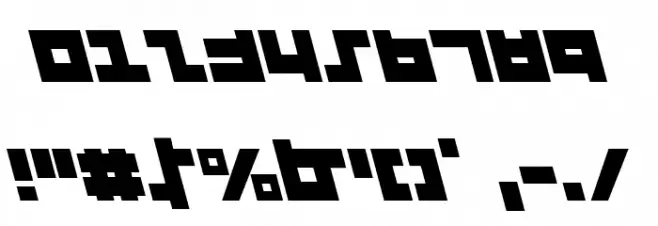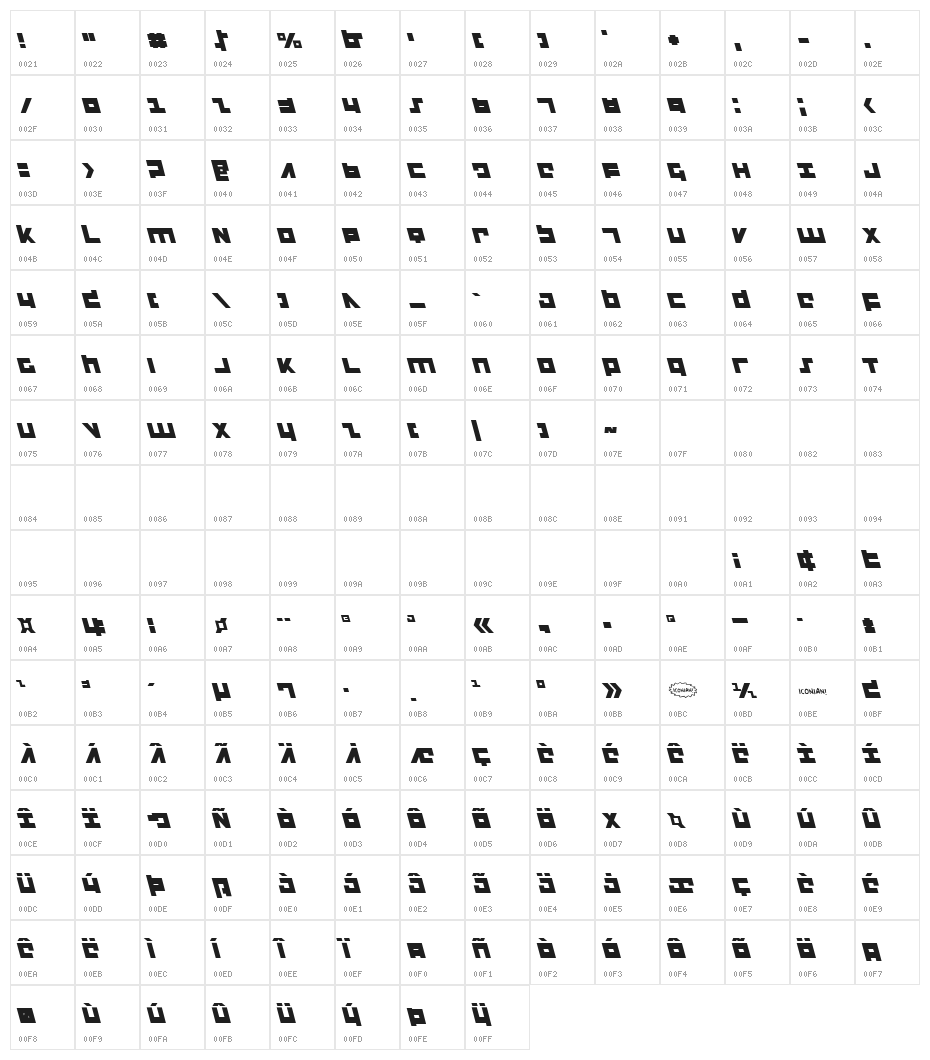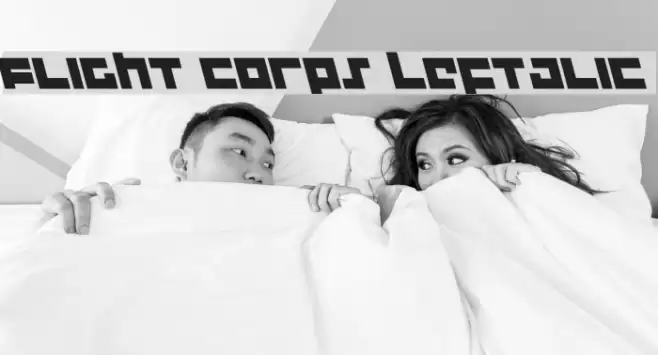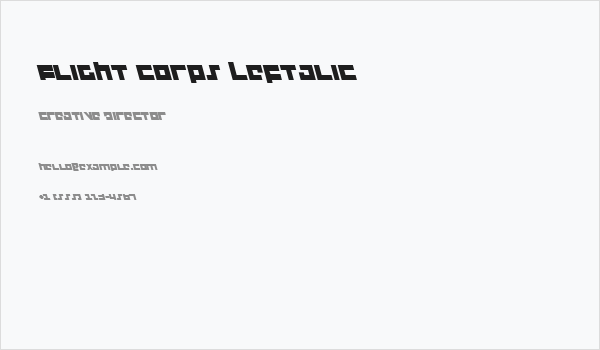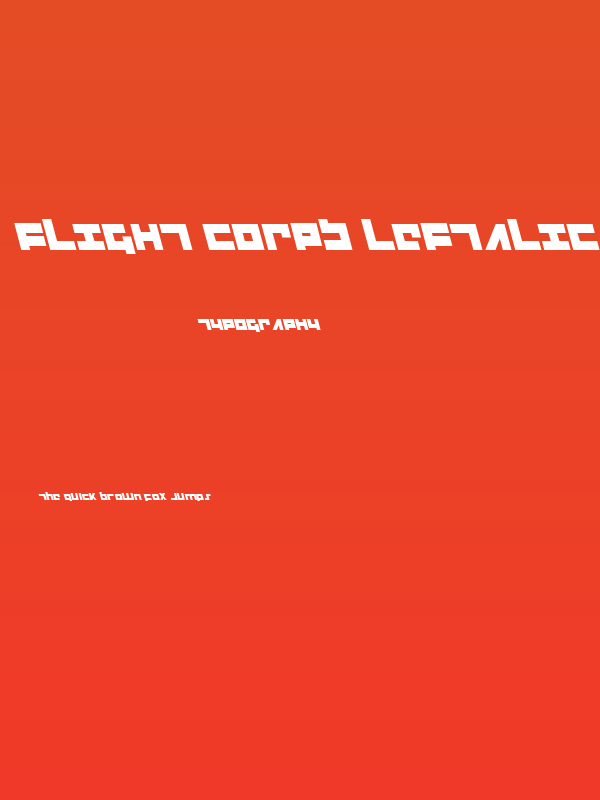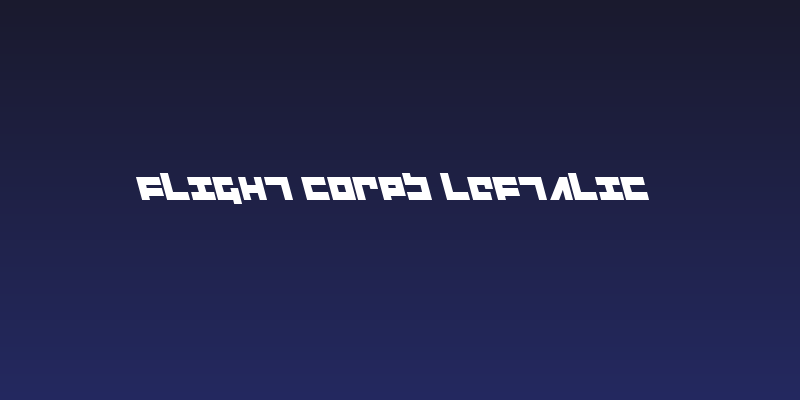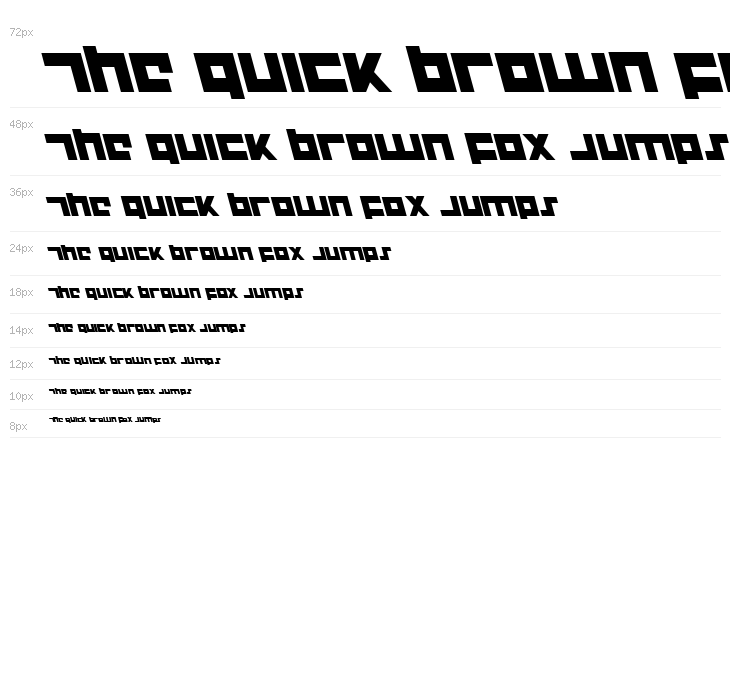
Flight Corps Leftalic Font
Flight Corps Leftalic Description
This font features a bold, angular design with a futuristic and geometric aesthetic. The characters are constructed with sharp, straight lines and edges, giving it a strong and assertive appearance. The uppercase and lowercase letters maintain a consistent style, with a slight slant that adds a dynamic feel. The numbers and special characters follow the same design principles, ensuring uniformity across all glyphs. This font's unique style makes it stand out, ideal for projects that require a modern and edgy look.
| Proposed Projects | Ideal for sci-fi themed projects, video game titles, tech branding, and modern posters. |